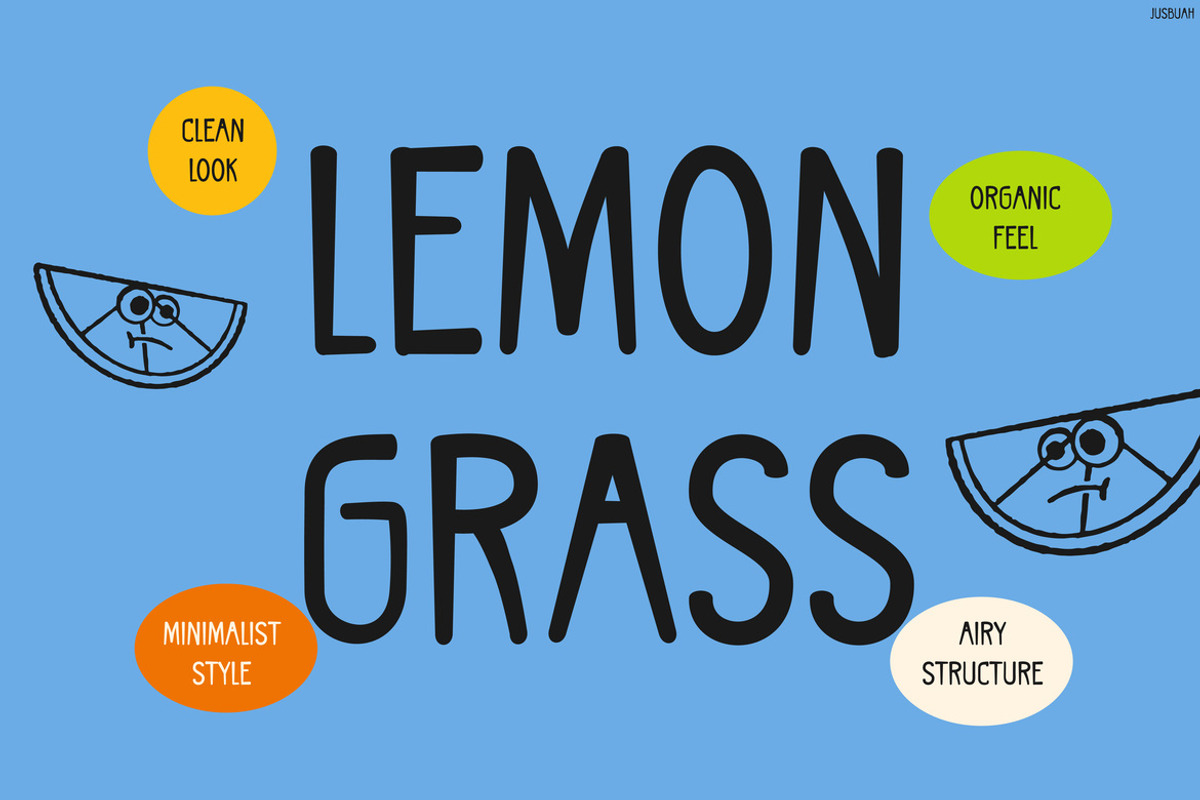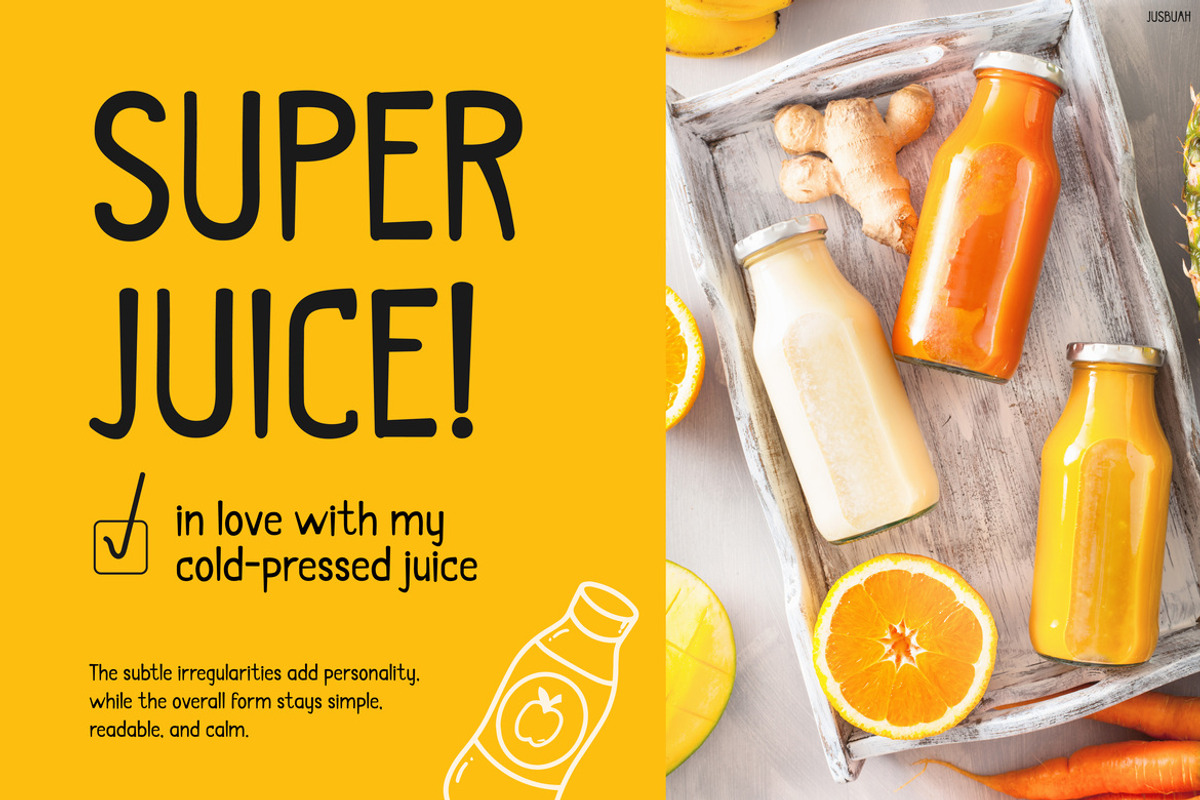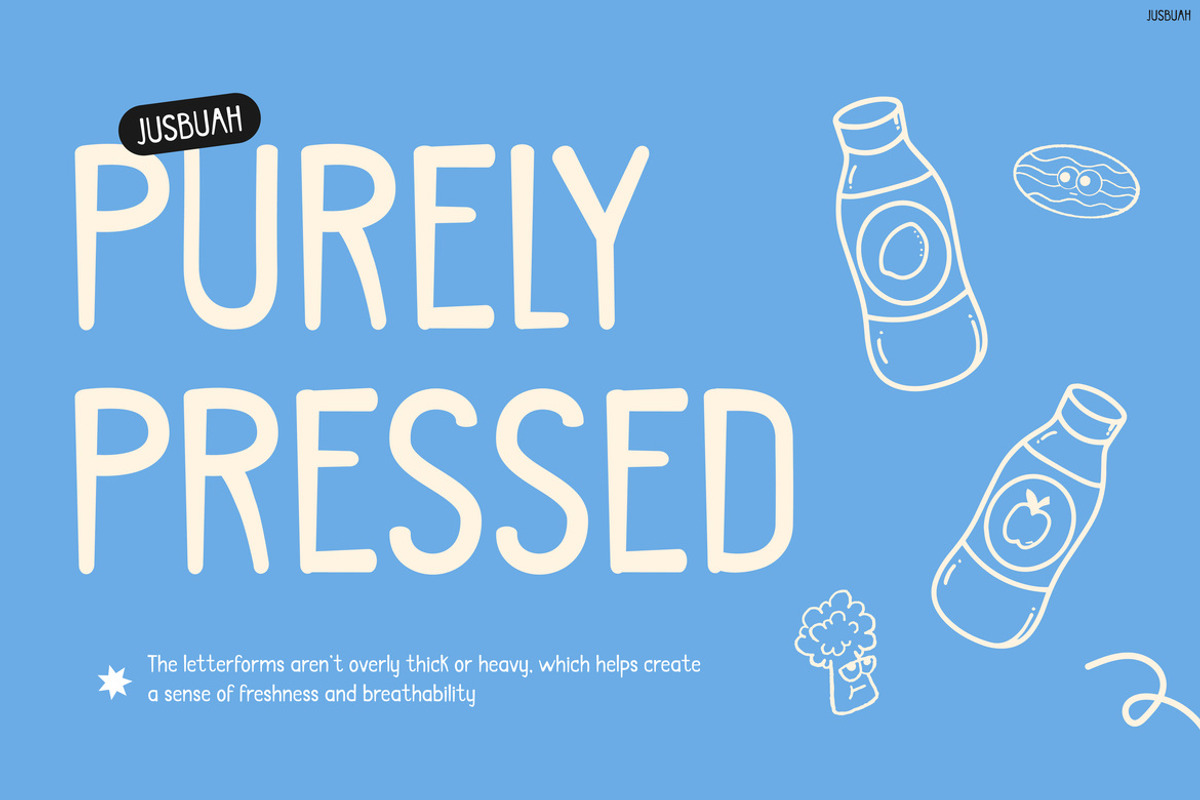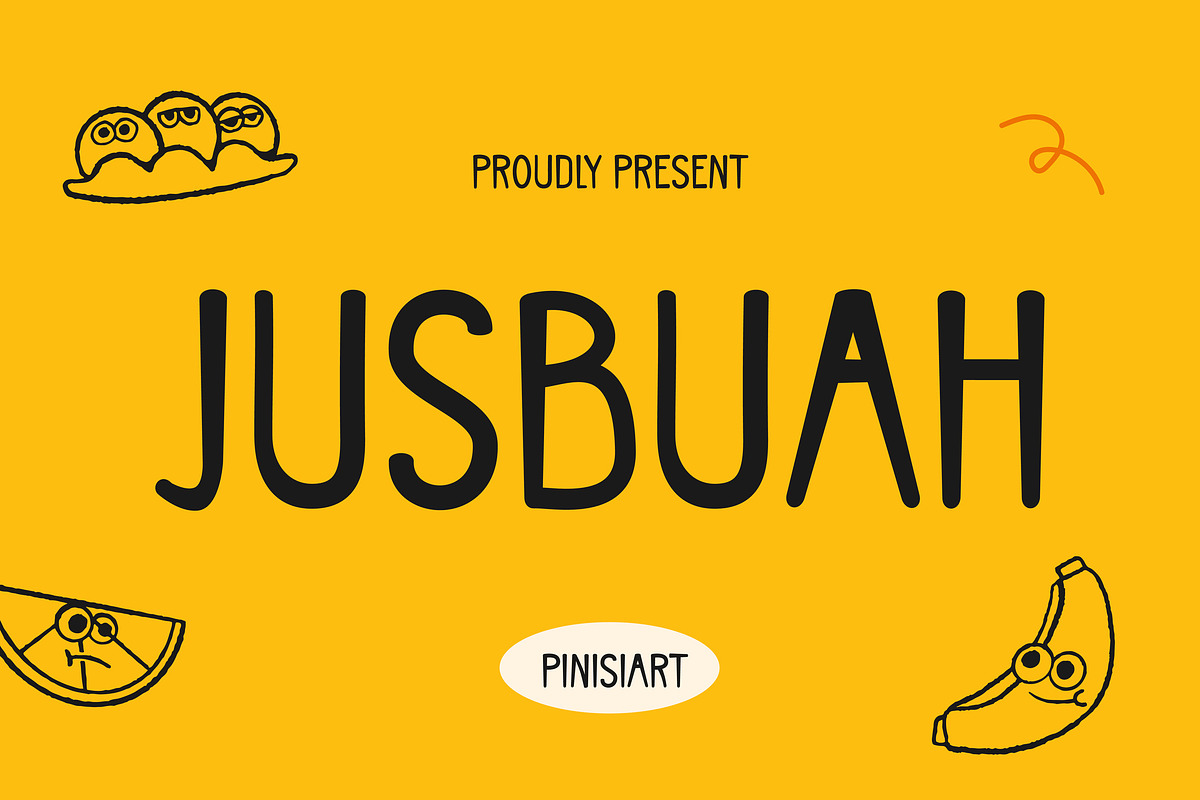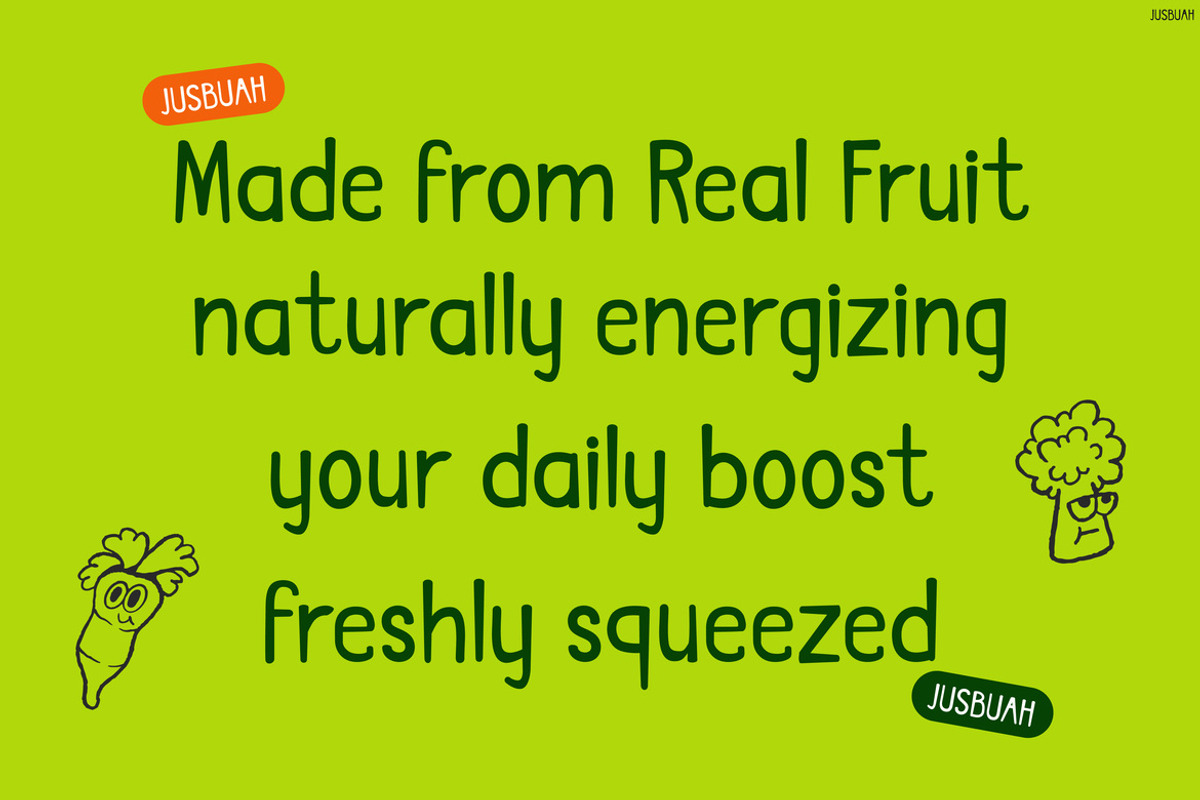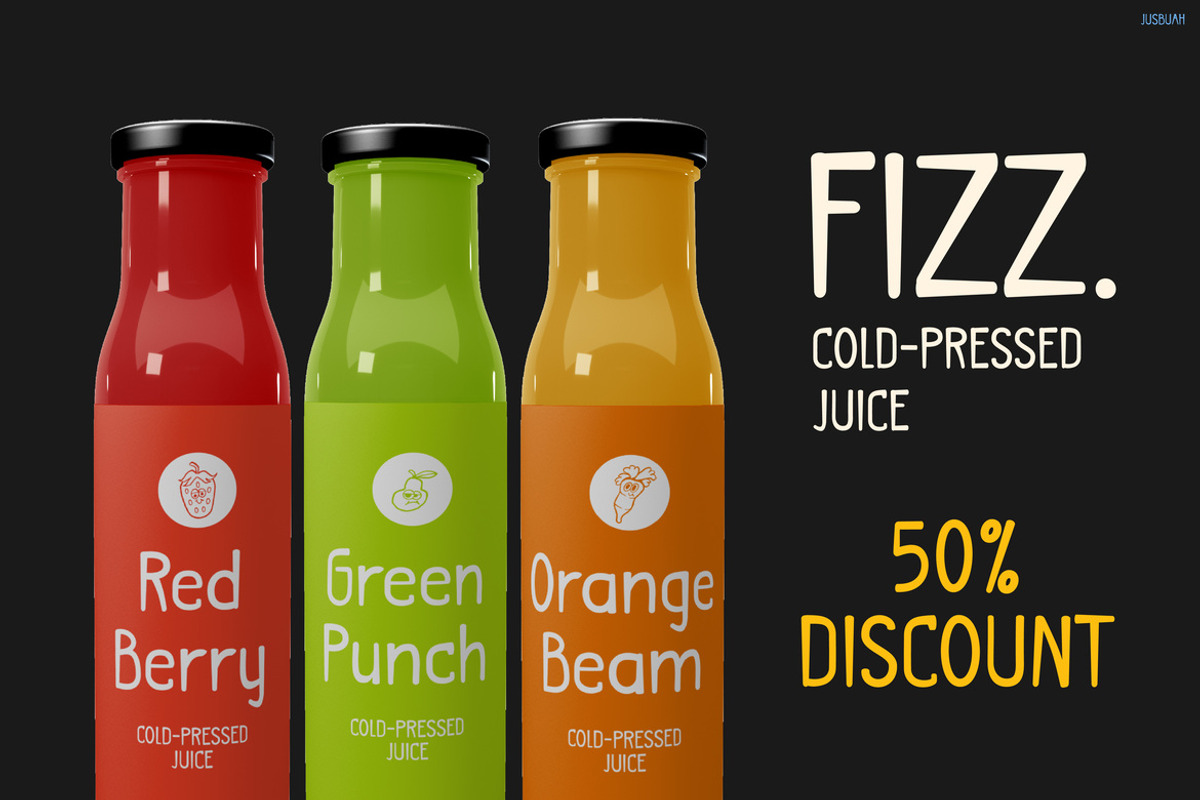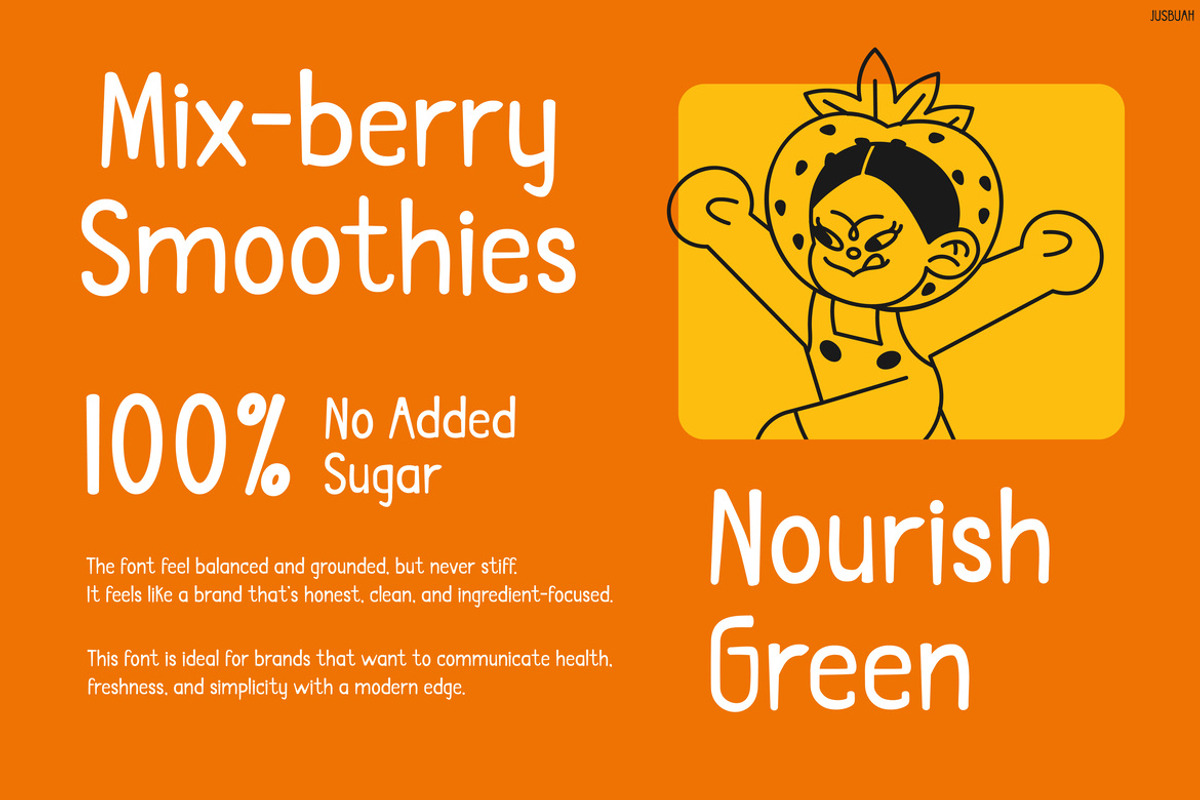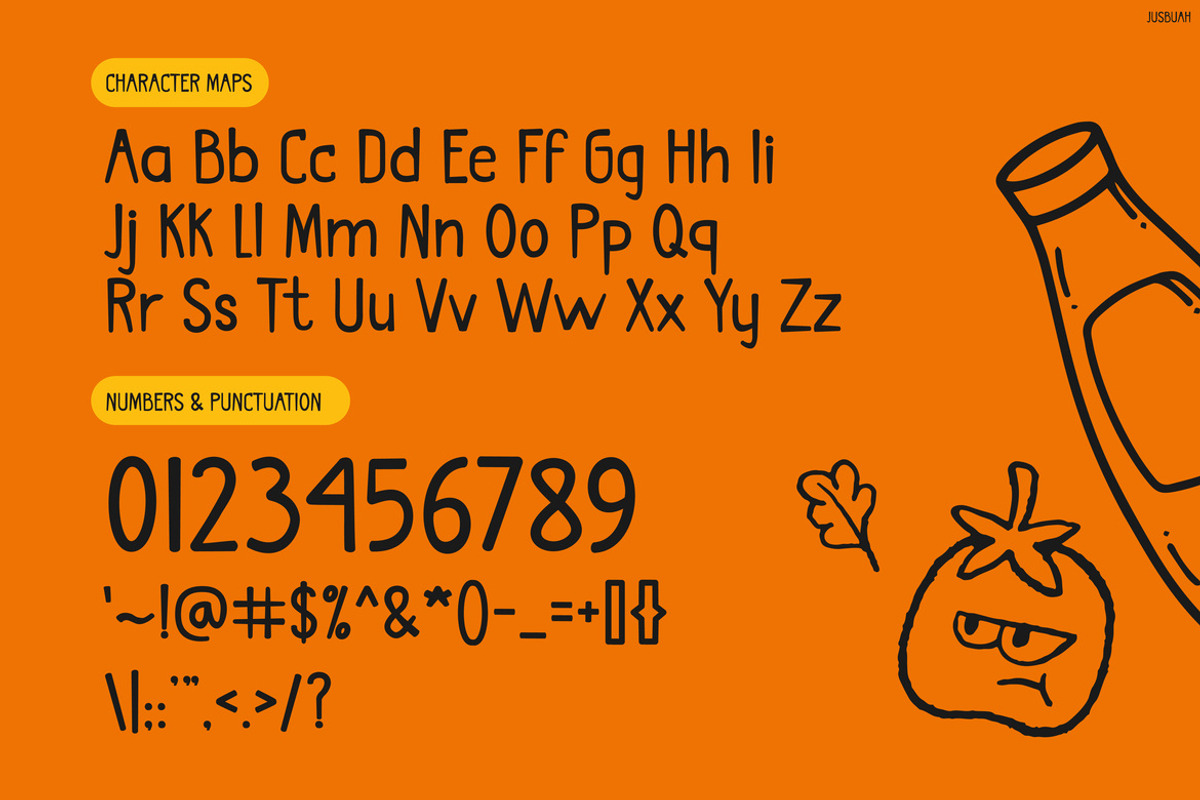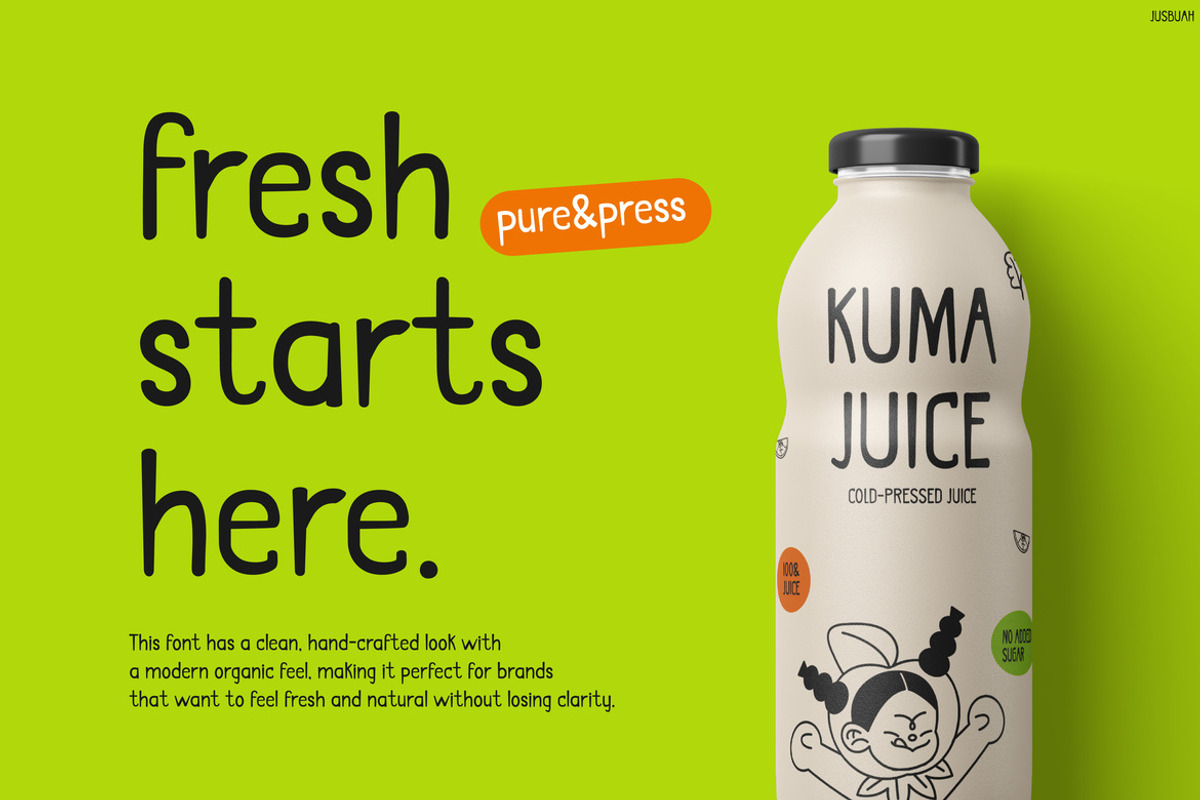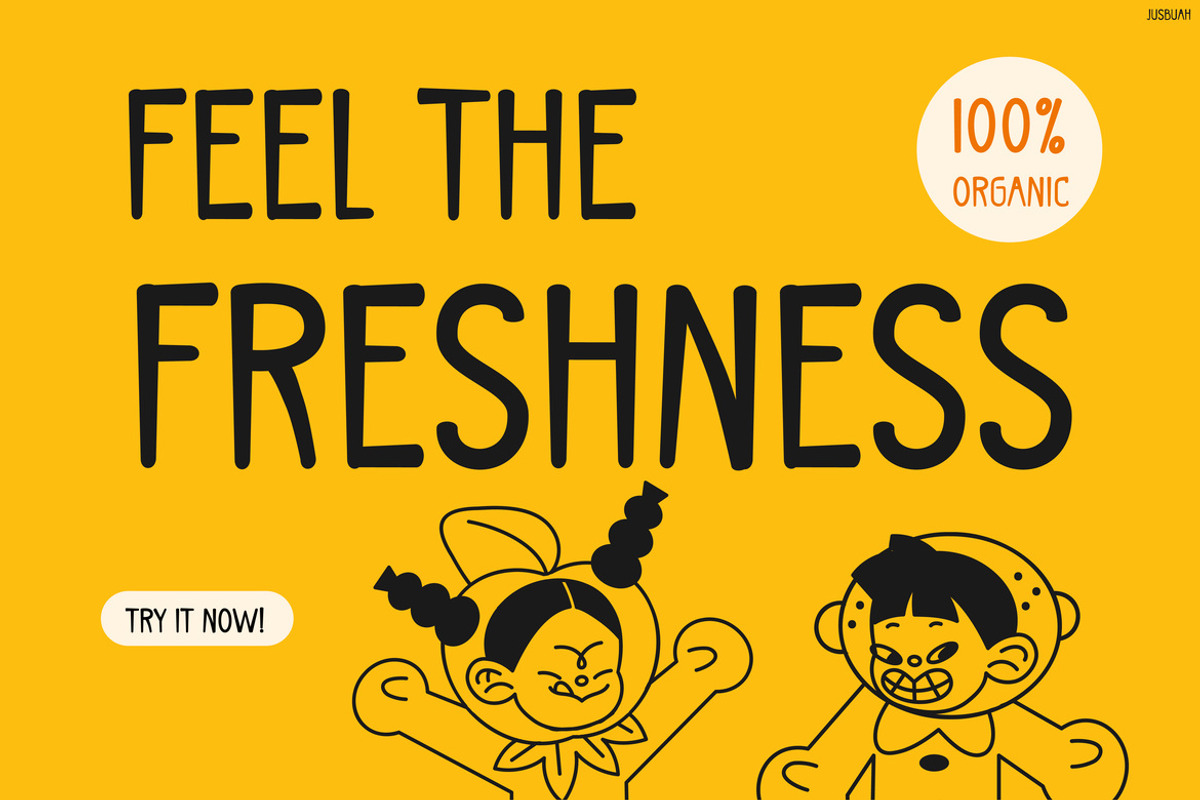
Jusbuah
Kids Font Jusbuah – Playful, Fresh & Fun Vibes
Kids Font Jusbuah brings a burst of cheerful energy, while instantly capturing attention with its playful, hand-drawn style. Moreover, its rounded and slightly irregular shapes create a natural, organic feel that reflects fruity freshness. Not only is it visually fun, but it also maintains excellent readability, so your message stays clear across any design. In addition, the lively character details make every word feel expressive, which helps your visuals stand out in bright, colorful compositions.